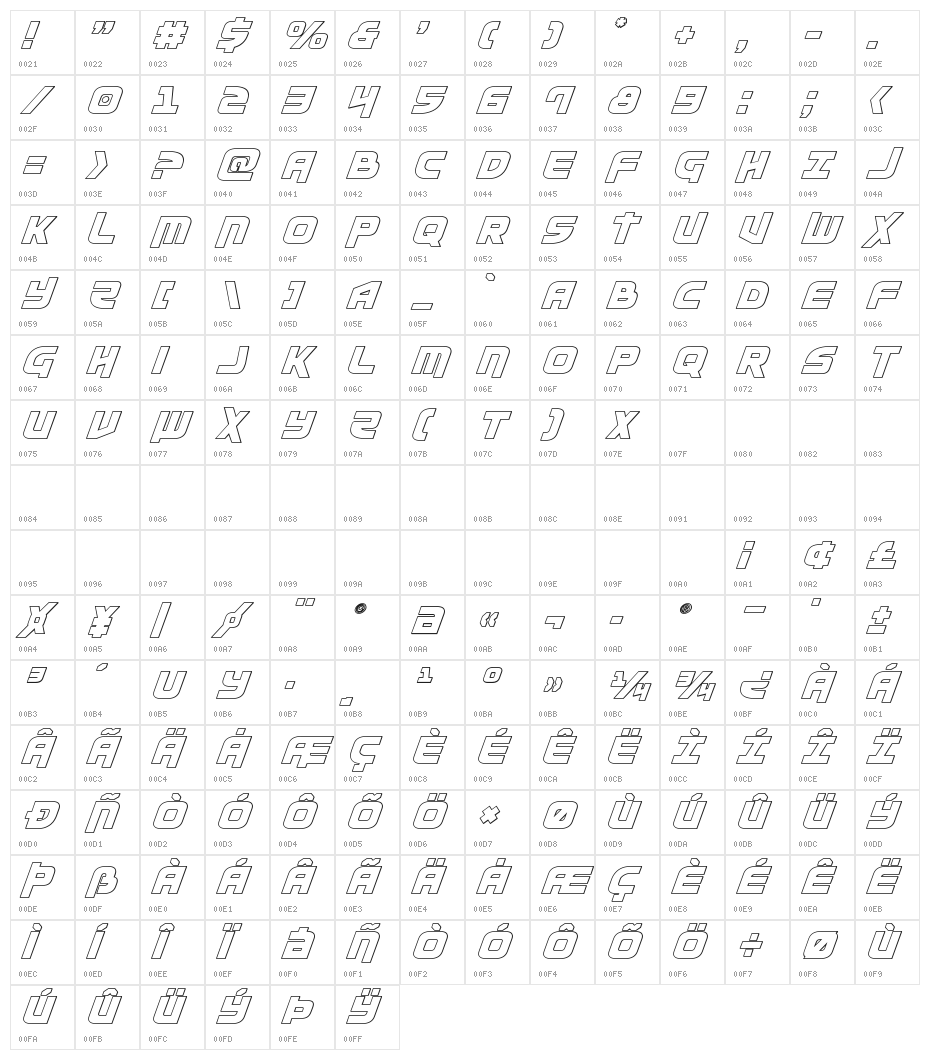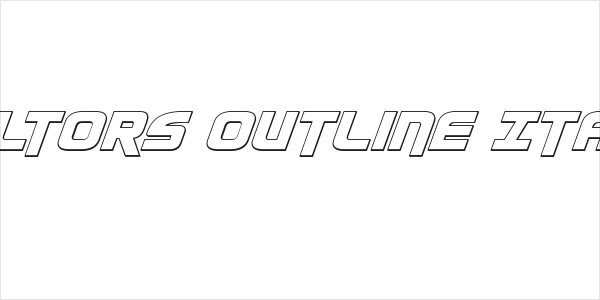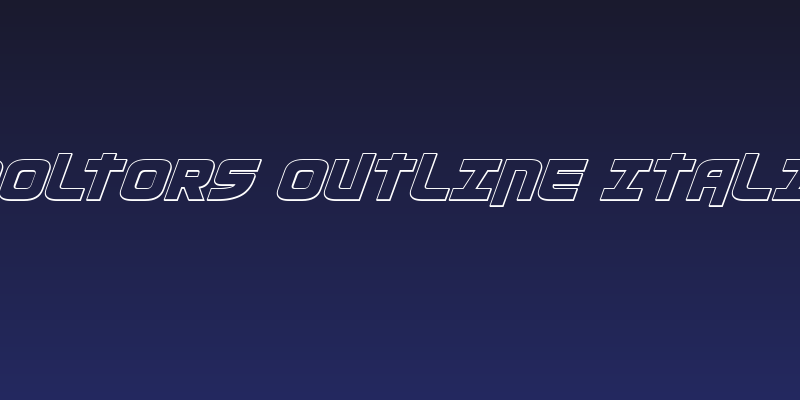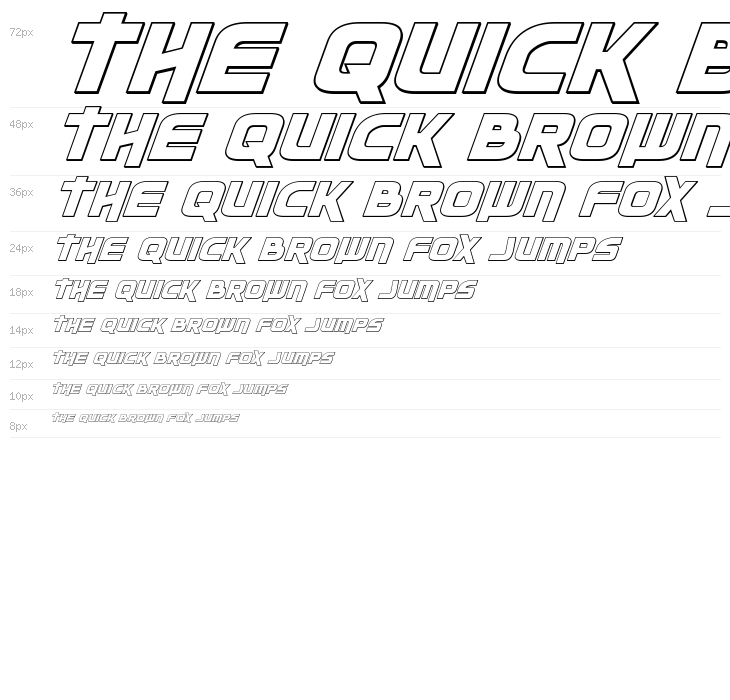
Moltors Outline Italic Font
Moltors Outline Italic Description
This font features a bold, geometric outline style with a distinct italic slant, giving it a dynamic and modern appearance. The characters are constructed with clean, sharp lines and angles, creating a futuristic and technical feel. The uppercase and lowercase letters maintain a consistent design, with the uppercase being slightly more pronounced. The numerals and special characters follow the same stylistic approach, ensuring uniformity across all glyphs. The outline nature of the font allows for creative use of color and layering, making it versatile for various design applications.